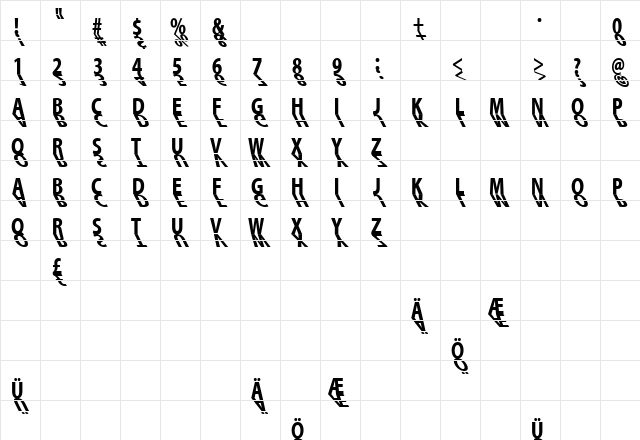
MirrorKlein Shadows
Design Context for MirrorKlein Typeface
MirrorKlein brings ornamental detail and strong personality to headlines and identities, where visual impact matters more than quiet functionality.
Font Pairing: Pair with a clean neutral sans-serif for body copy to let MirrorKlein's character lead without overwhelming the composition.
Pro Tip: Use MirrorKlein exclusively at display sizes — it was designed to be seen, not read at length. Let a neutral companion handle body copy.